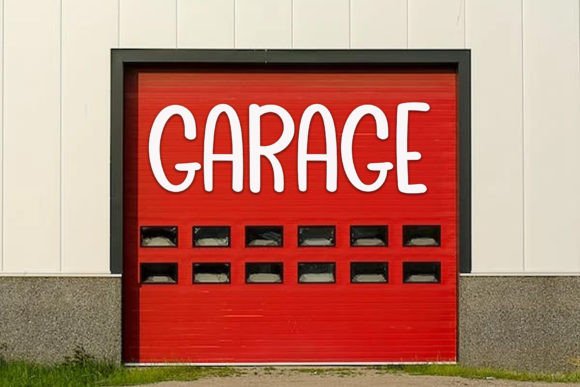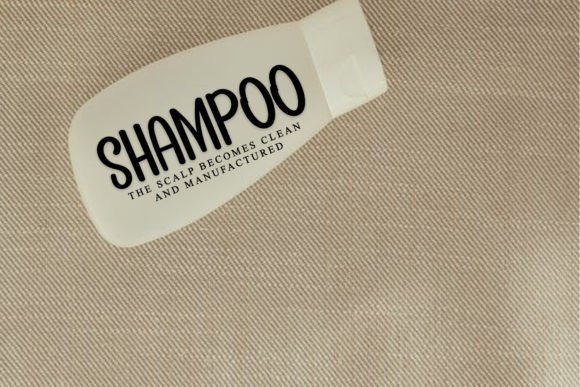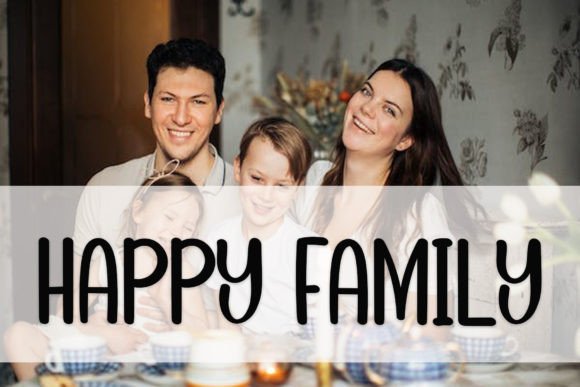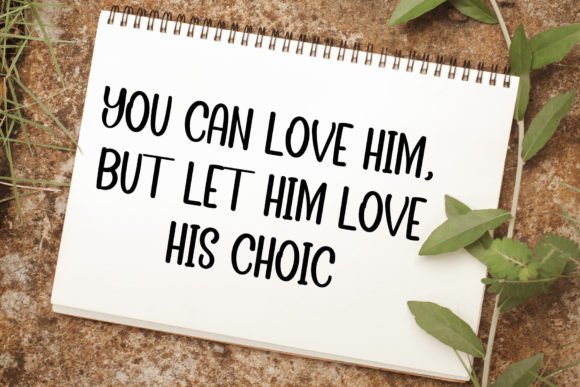
Discover the Elegance of Black Board Font: Elevate Your Designs with Timeless Style
Are you on the hunt for a font that exudes elegance, sophistication, and a touch of timeless charm? Look no further than the Black Board Font, a stunning handwritten typeface that is sure to capture your heart. With its incredibly distinct and beautiful style, this font is perfect for designers and crafters looking to add a touch of class to their favorite projects.
The Beauty of Black Board Font
Black Board Font is a neat and beautiful handwritten font that boasts an elegant touch, making it an ideal choice for a wide range of design applications. Whether you’re working on a logo, branding materials, social media graphics, or even a website, this font is sure to impress. Its unique and timeless style is reminiscent of traditional blackboards, but with a modern twist that makes it perfect for contemporary designs.
Key Features of Black Board Font
- Elegant and Refined: Black Board Font features a sophisticated and elegant style that is sure to elevate your designs.
- Handwritten with Love: This font is carefully crafted with a handwritten touch, giving it a personal and unique feel.
- Timeless Appeal: The classic style of Black Board Font ensures that your designs will stand the test of time, remaining stylish and relevant for years to come.
- Versatile: This font is perfect for a wide range of design applications, from logos and branding to social media graphics and websites.
Why Choose Black Board Font?
With so many fonts to choose from, why should you opt for Black Board Font? Here are just a few reasons why designers and crafters are falling in love with this beautiful typeface:
- Unique Style: Black Board Font boasts a unique and distinctive style that sets it apart from other fonts.
- Ease of Use: This font is incredibly easy to use, making it perfect for designers of all skill levels.
- Customization: Black Board Font can be easily customized to suit your design needs, ensuring that your projects stand out from the crowd.
Using Black Board Font in Your Designs
So, how can you use Black Board Font in your designs? Here are a few ideas to get you started:
- Logos and Branding: Use Black Board Font to create stunning logos and branding materials that exude elegance and sophistication.
- Social Media Graphics: Add a touch of class to your social media graphics, including Facebook posts, Instagram stories, and Twitter headers.
- Websites: Use Black Board Font to create beautiful website headers, titles, and other design elements that showcase your brand’s personality.
- Crafting and DIY: This font is also perfect for crafters and DIY enthusiasts looking to add a personal touch to their projects, such as handmade cards, invitations, and more.
Tips and Tricks for Getting the Most Out of Black Board Font
To ensure that you get the most out of Black Board Font, here are a few tips and tricks to keep in mind:
- Experiment with Colors: Try pairing Black Board Font with different colors to create stunning contrast and visual interest.
- Play with Sizes: Experiment with different font sizes to create visual hierarchy and emphasize key design elements.
- Add Texture: Consider adding texture to your designs to give them a more organic and handmade feel.
In conclusion, Black Board Font is a beautiful and elegant handwritten font that is perfect for designers and crafters looking to add a touch of timeless style to their projects. With its unique and refined style, this font is sure to elevate your designs and make them stand out from the crowd. So why wait? Fall in love with Black Board Font and start creating spectacular designs today!